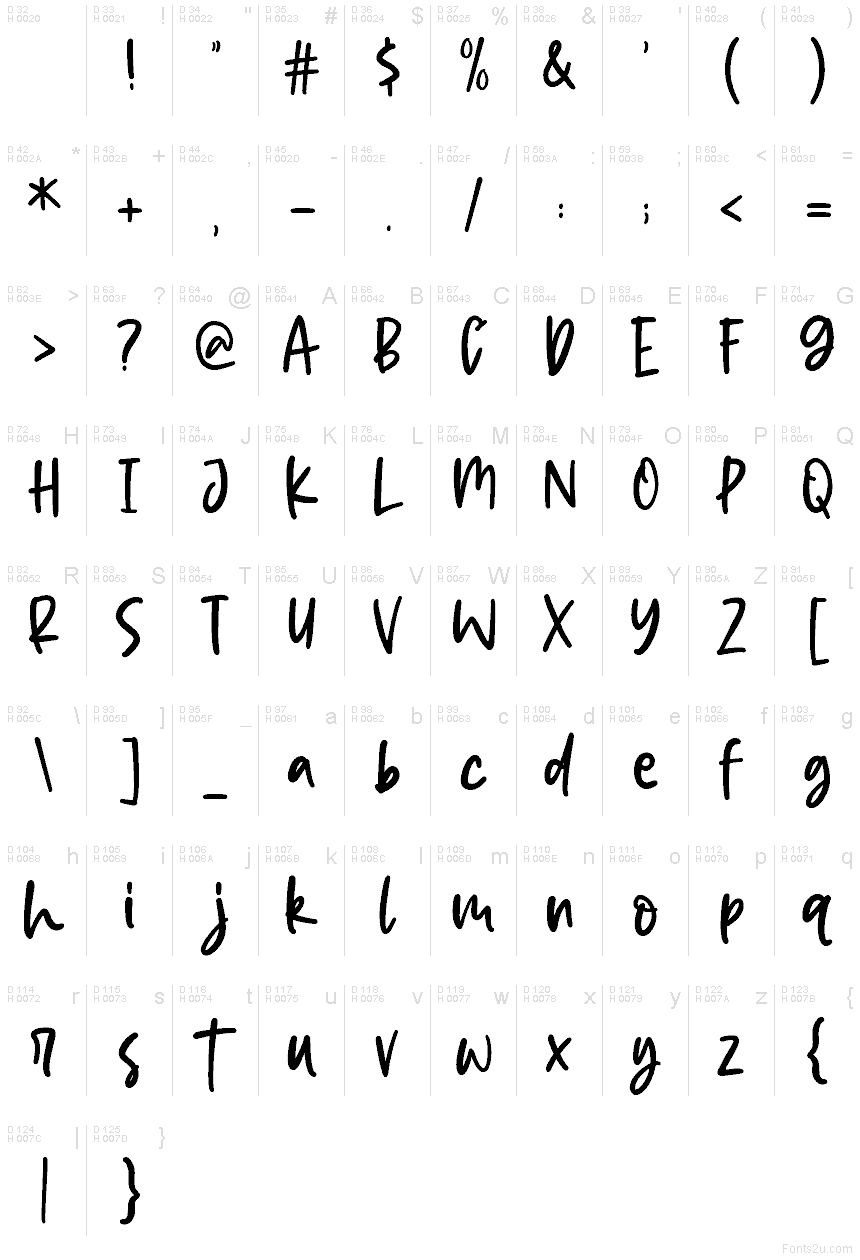
Star Blossom Demo
Star Blossom font by epiclinez is a free handwritten font. It stands out with lively, uneven strokes that swell and taper like real ink, giving each word a breezy, upbeat rhythm. Rounded terminals and a gently bouncy baseline add a friendly wink without slipping into chaos, so headlines feel human and energetic rather than messy.
This free font shines on product packaging, cafe menus, festival posters, Instagram quotes, boutique logos, and playful greeting cards. Using Star Blossom lends projects a hand-painted warmth that reads quickly at size while keeping personality up close. Pair it with a clean sans serif for body copy, and let Star Blossom lead at larger sizes to showcase the inky texture and cheerful cadence.